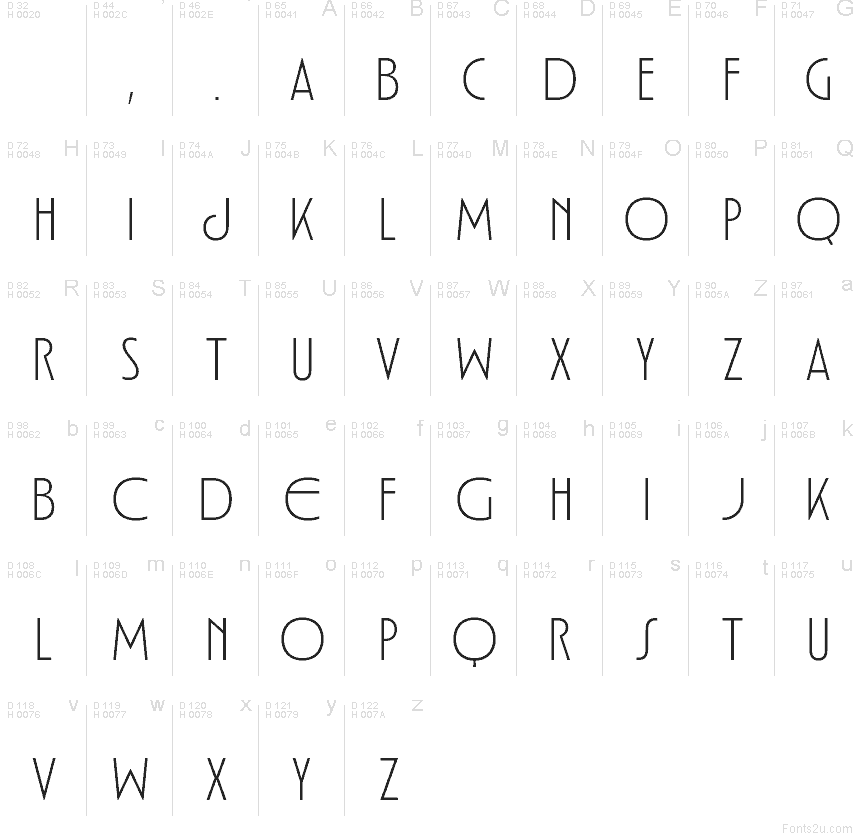
Crostan Light font by Bagus Arya Kirana of Genetype is a free elegant sans serif typeface from the Crostan family. Its ultra-thin strokes, tall proportions, and refined curves give it a sleek, almost glassy presence that feels both modern and subtly Art Deco. The generous breathing room between letters adds a calm, luxurious rhythm that draws the eye without shouting.
Using Crostan Light, you can craft fashion branding, magazine covers, posters, cosmetics packaging, chic invitations, and minimalist logo wordmarks that feel polished and upscale. This free font shines at larger sizes where its fine lines stay crisp; pair it with a simple, neutral sans serif for body copy to keep the spotlight on Crostan’s airy, sophisticated forms.